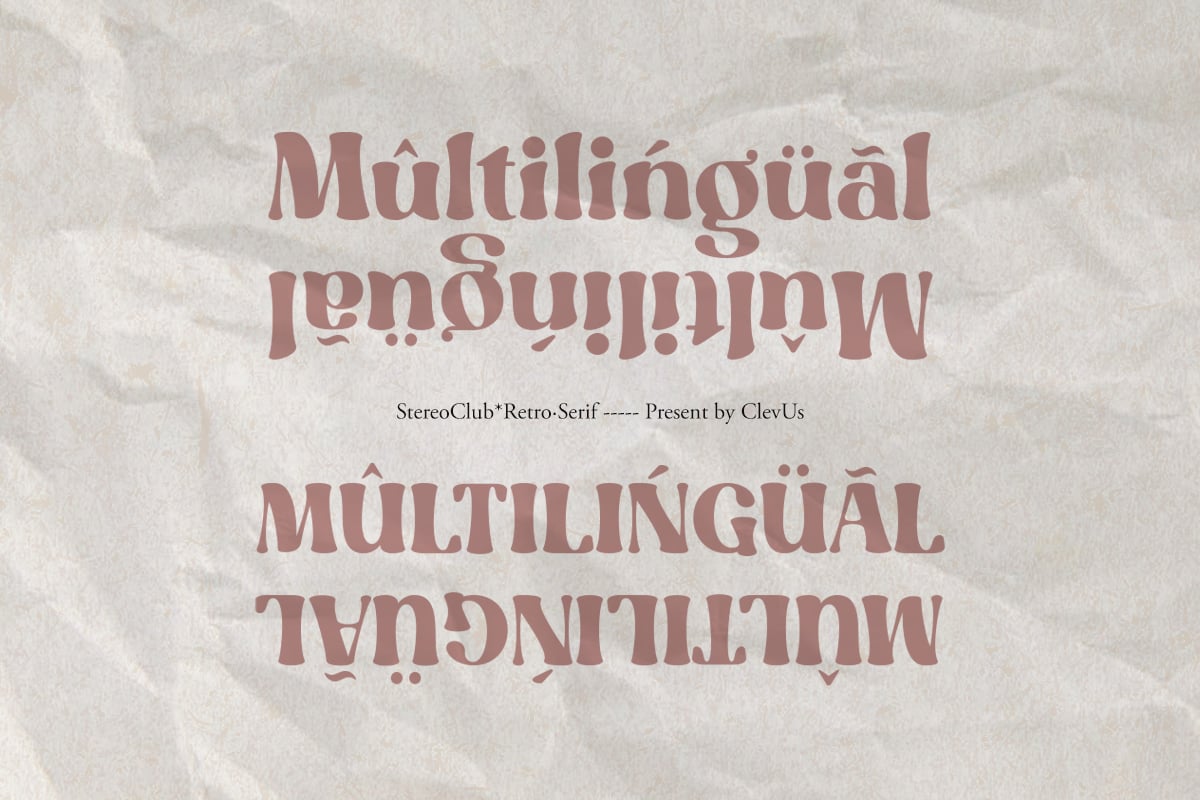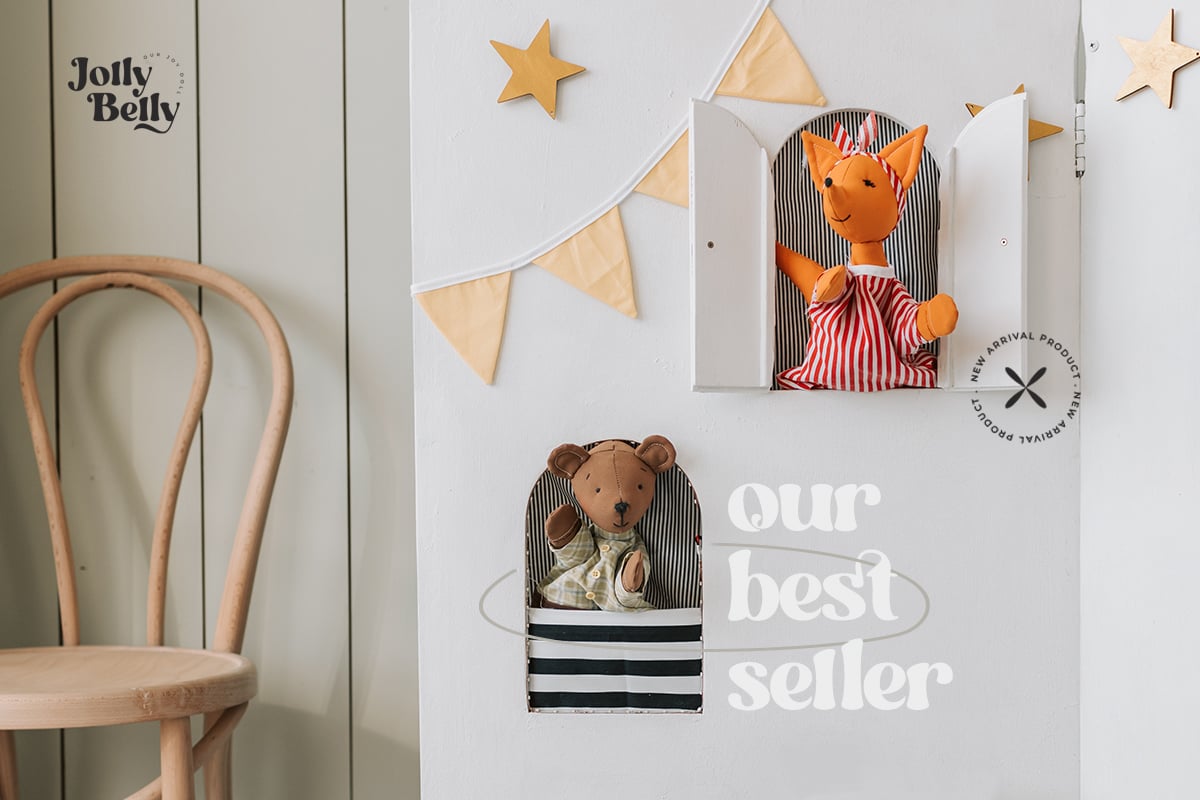
Stereo Club Font is a versatile typeface ideal for various projects, including logos, branding, posters, blog headers, advertisements. Designed by timelesstypestudio, it brings a distinctive character to every project. The free version includes a full set of uppercase and lowercase letters, available in OTF format.
Stereo Club Font